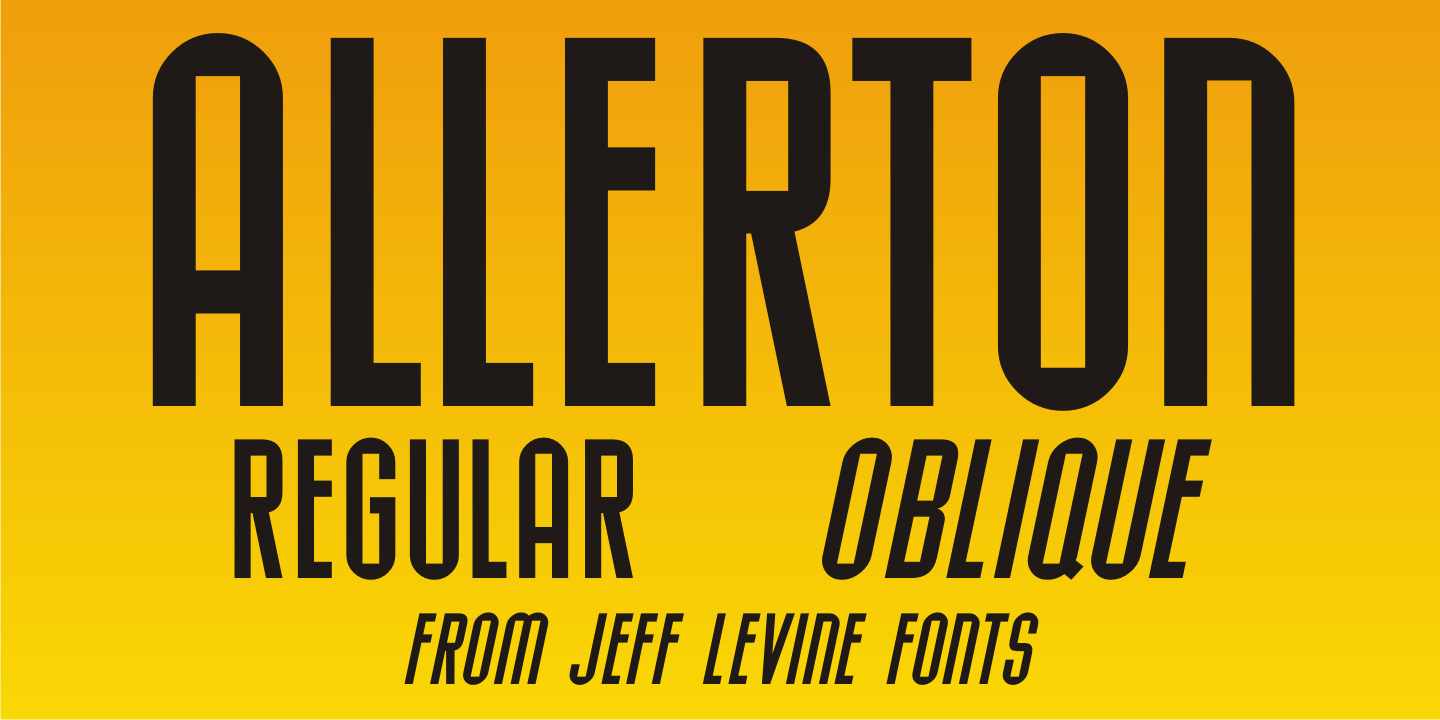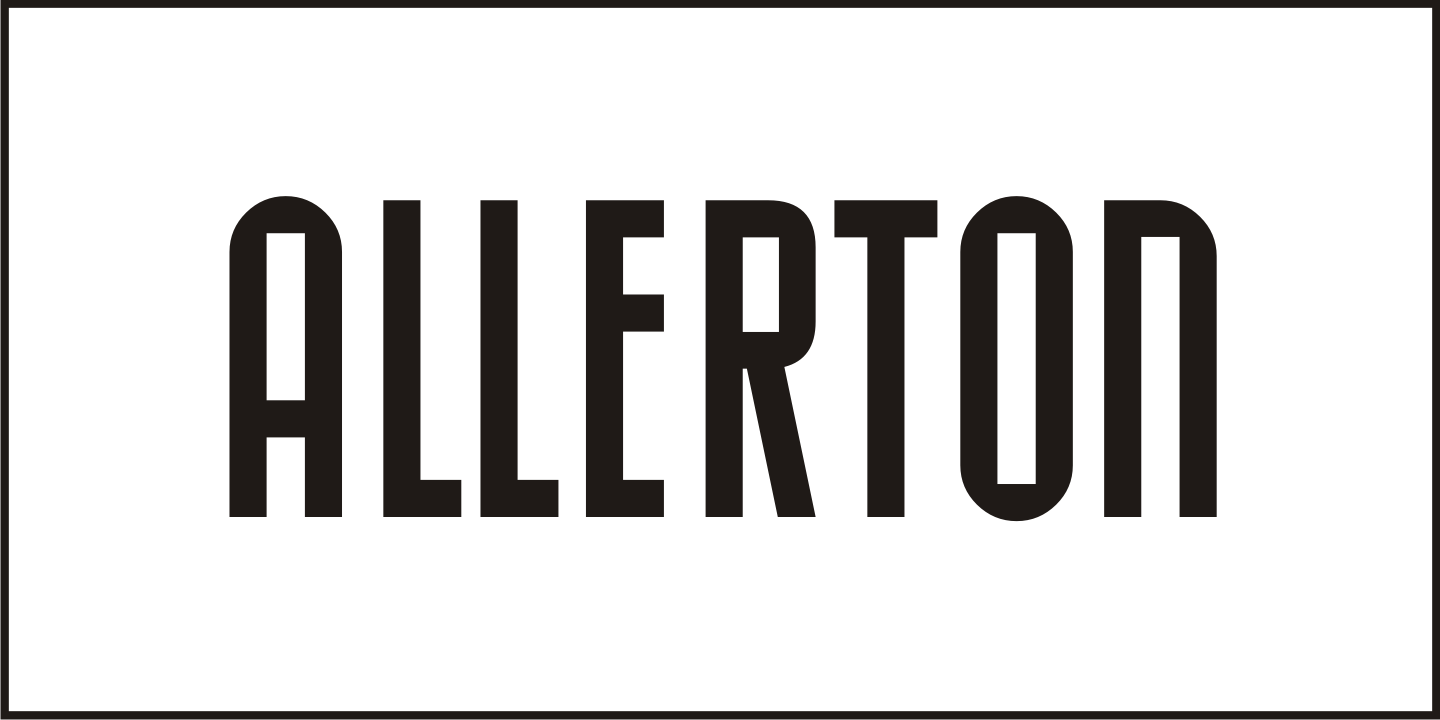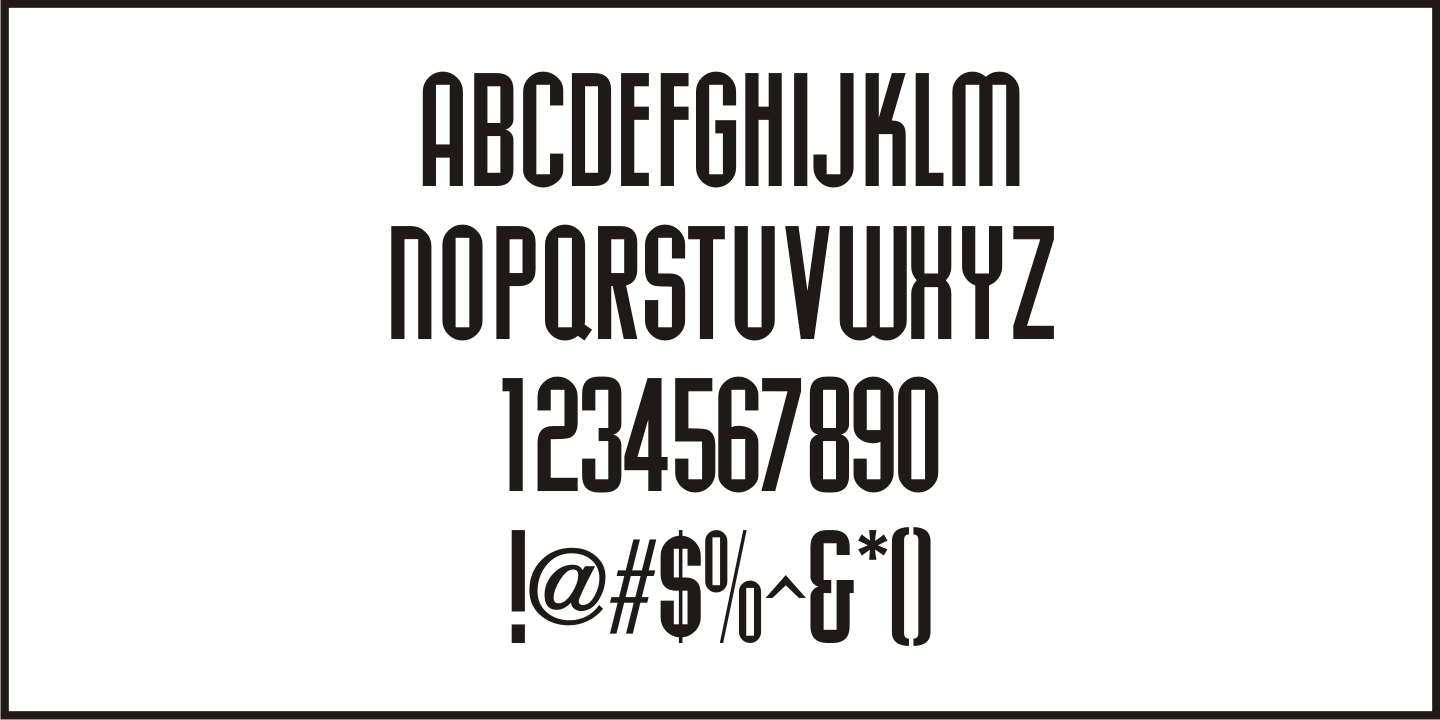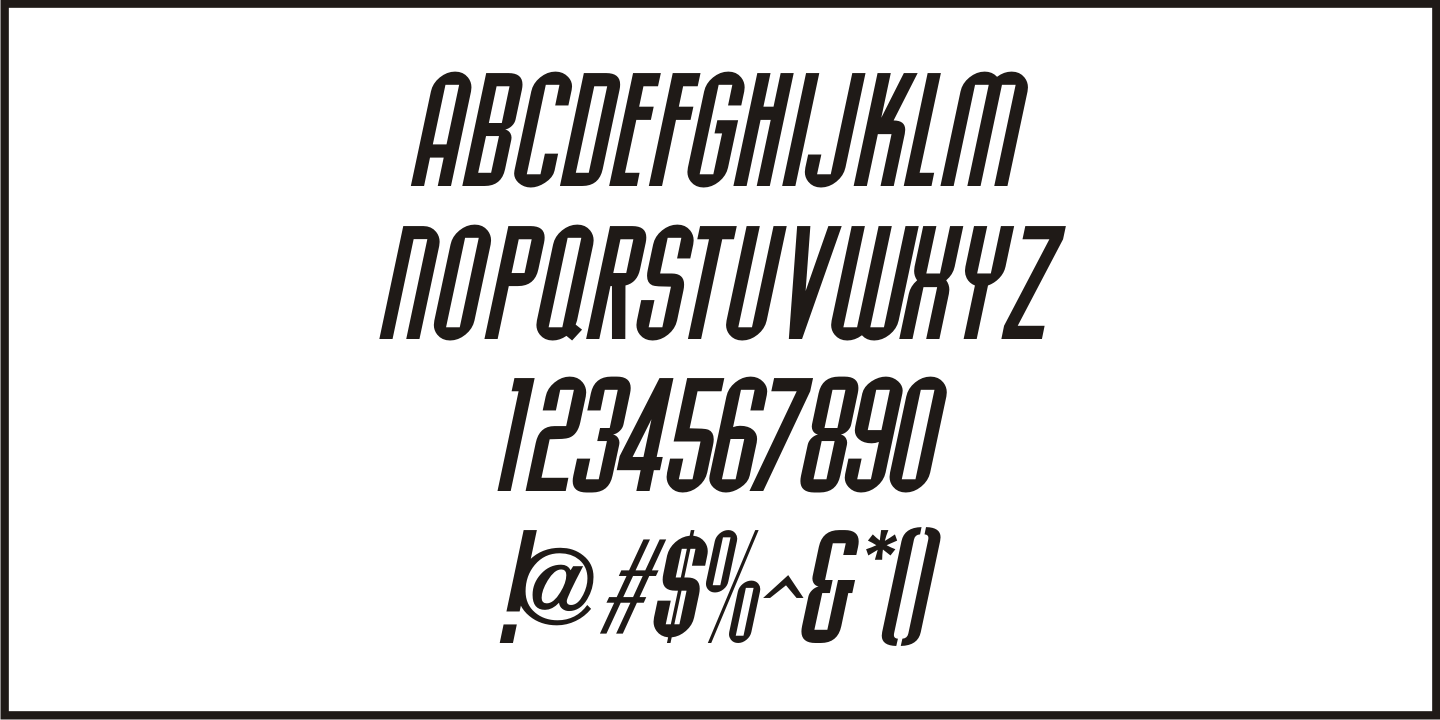
Allerton
Presenting a condensed Art Deco sans serif font with rounded corners and squared inner lines, based on the hand lettered title on the cover of the sheet music for 1944's 'Just A Little Fond Affection”.
Allerton JNL is available in both regular and oblique versions, and was named after a neighborhood in the Bronx, New York.
Allerton JNL Regular by Jeff Levine Fonts